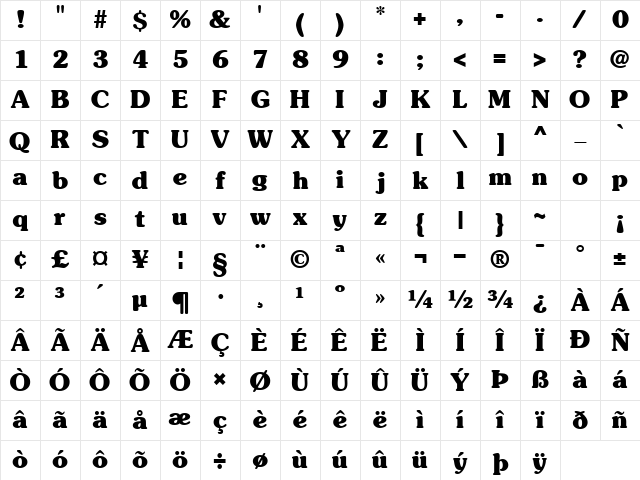
SouvenirBlackSSK Regular
Design Context for SouvenirBlackSSK
SouvenirBlackSSK is a composed and adaptable typeface that performs quietly and consistently across a wide range of design contexts.